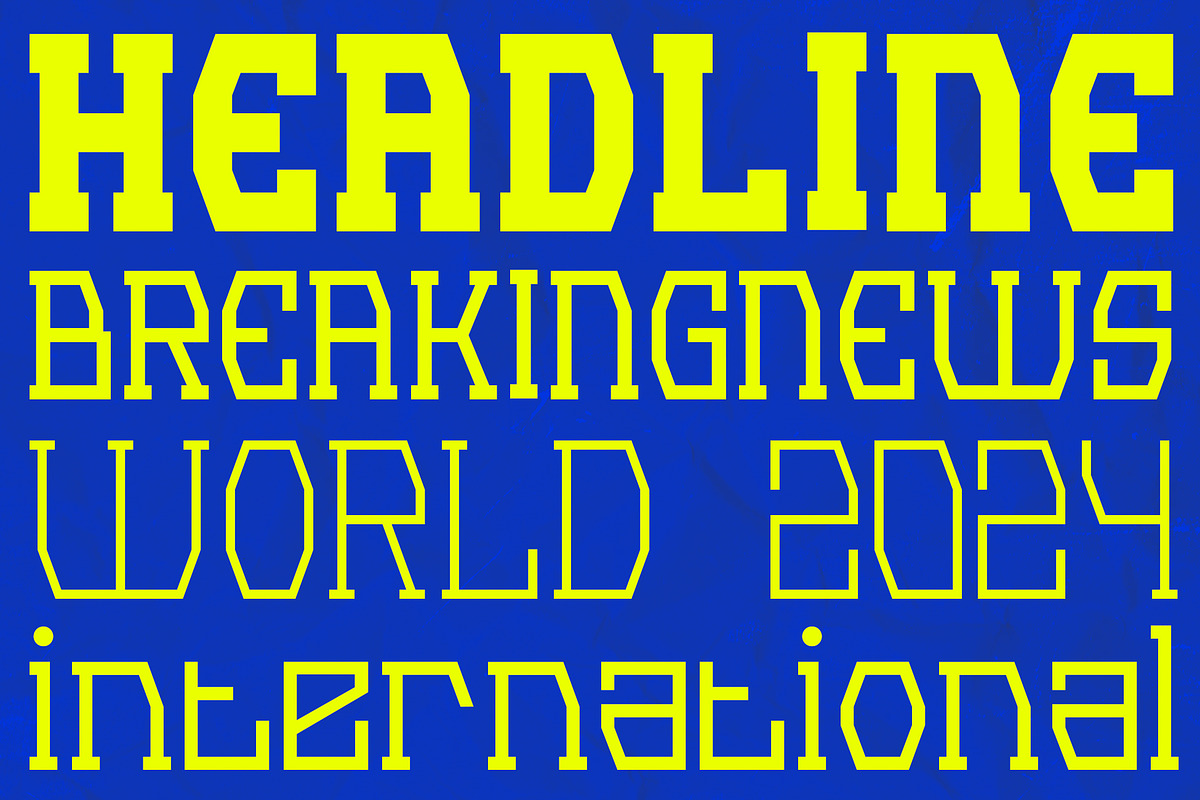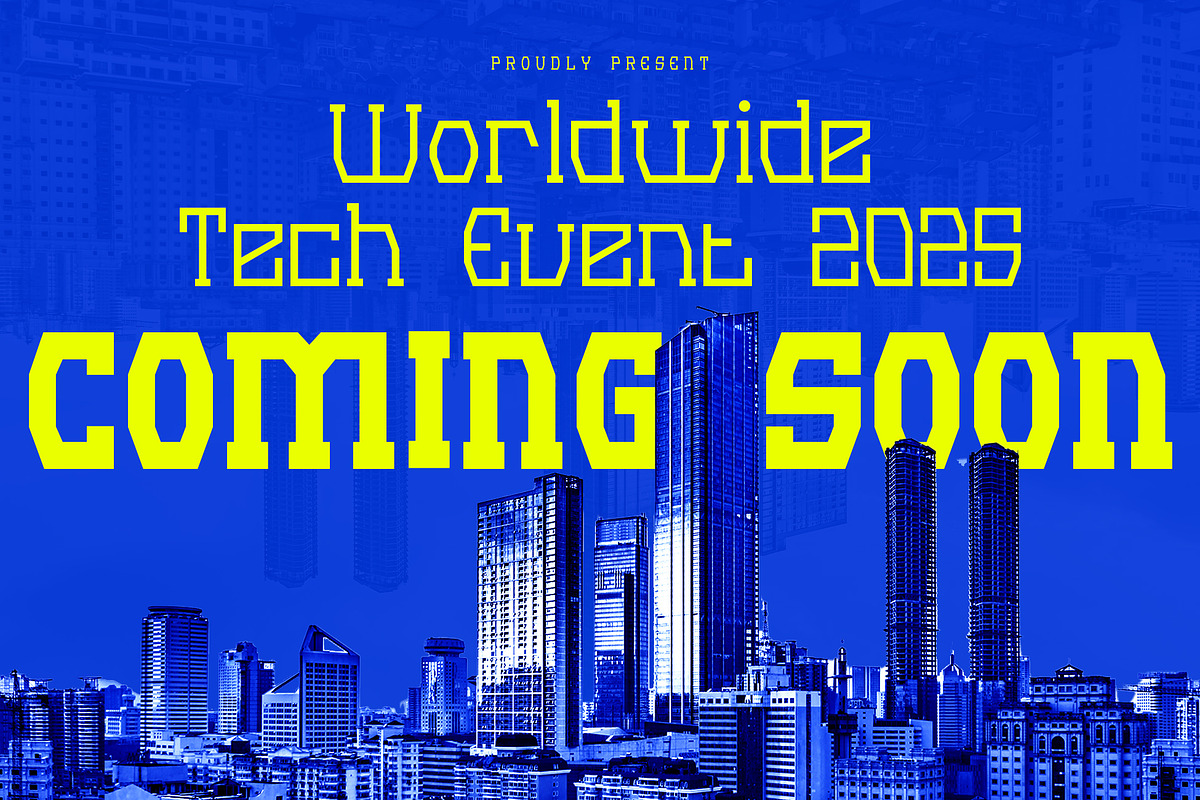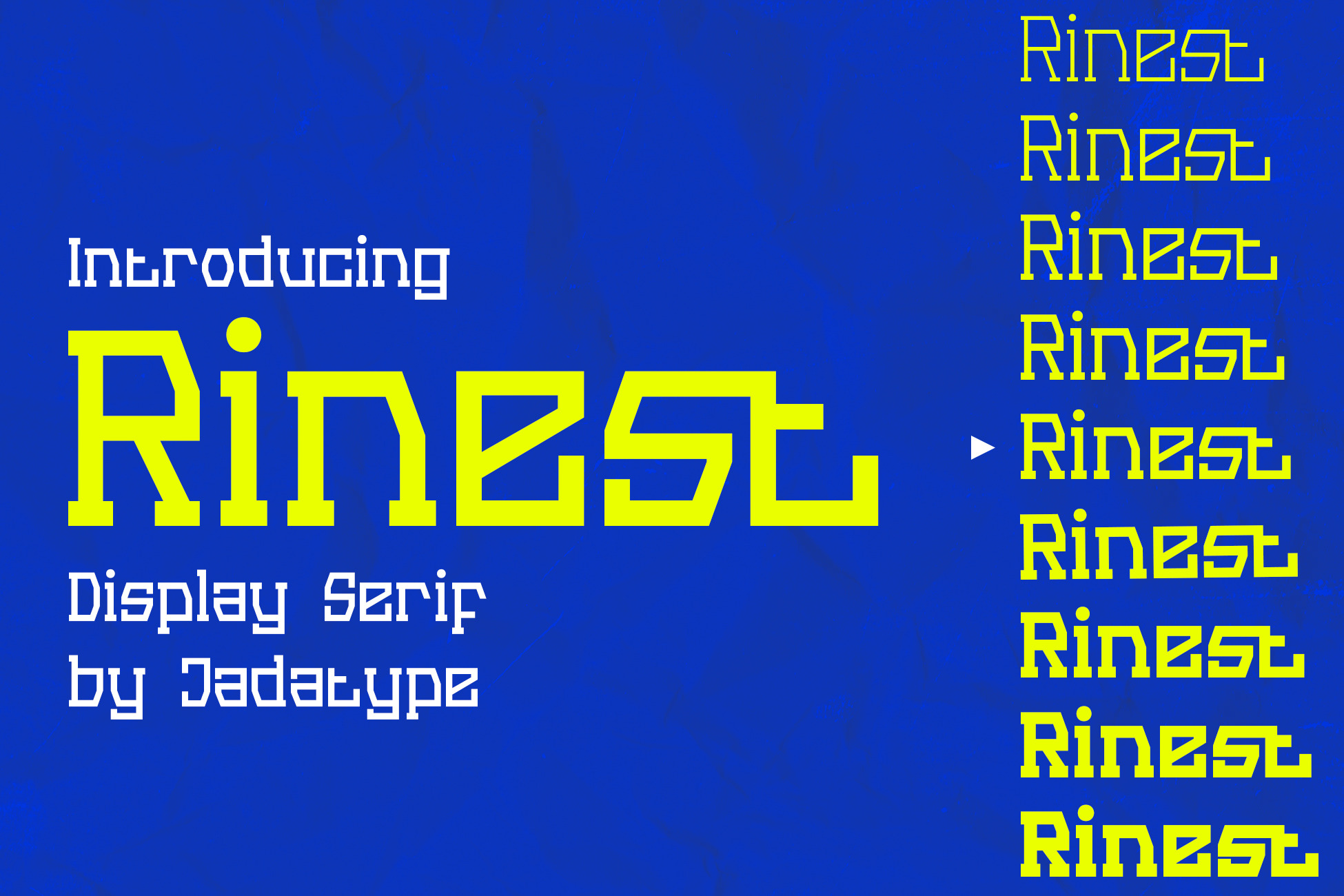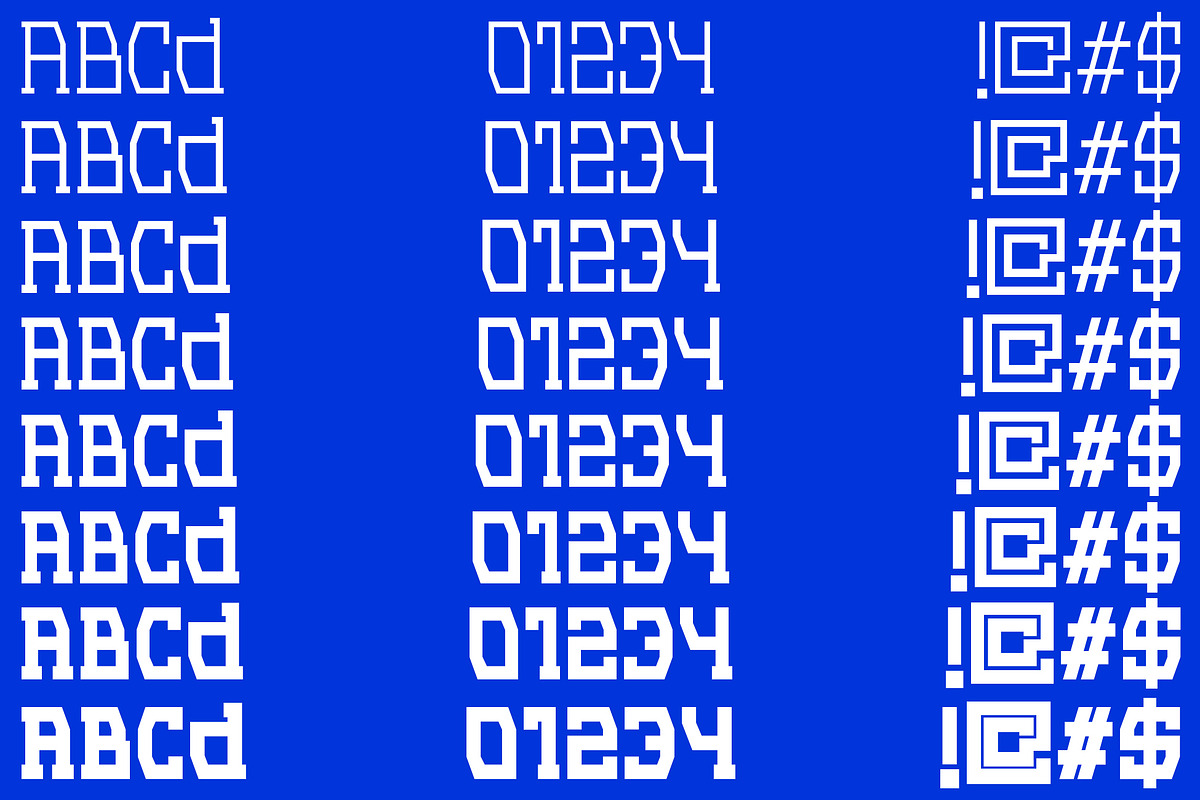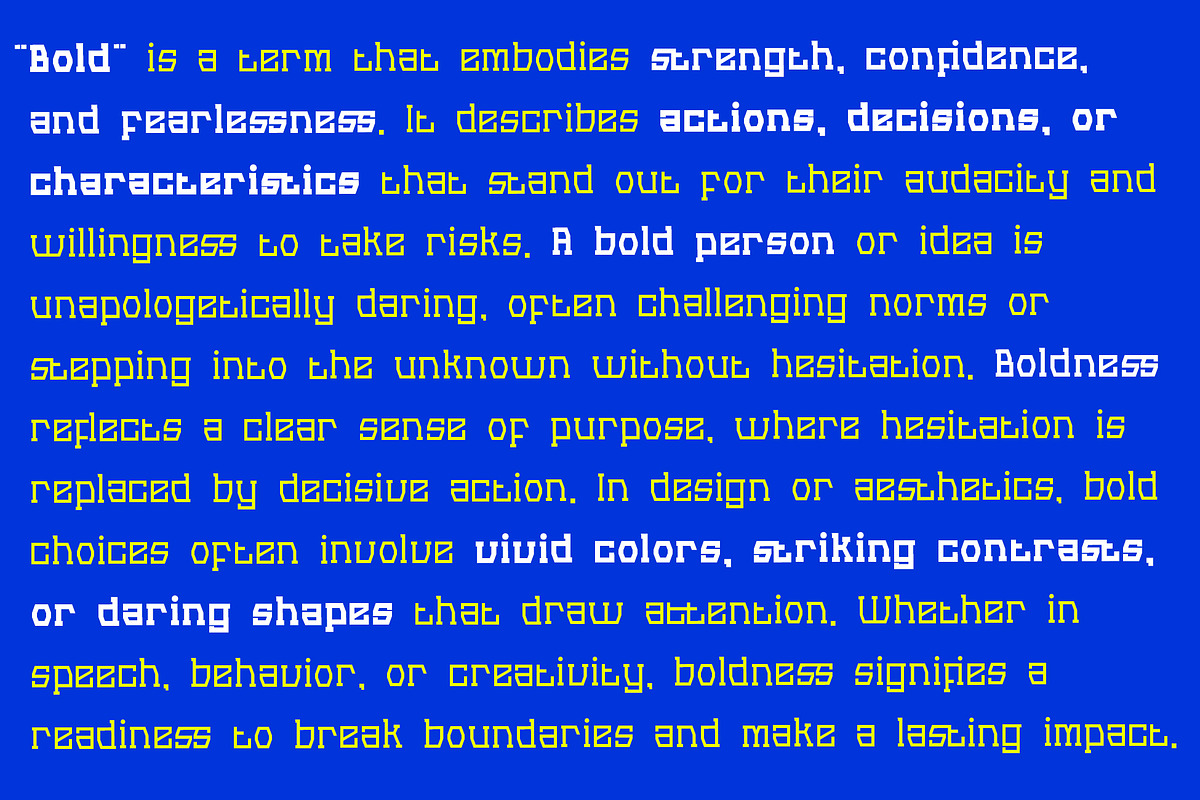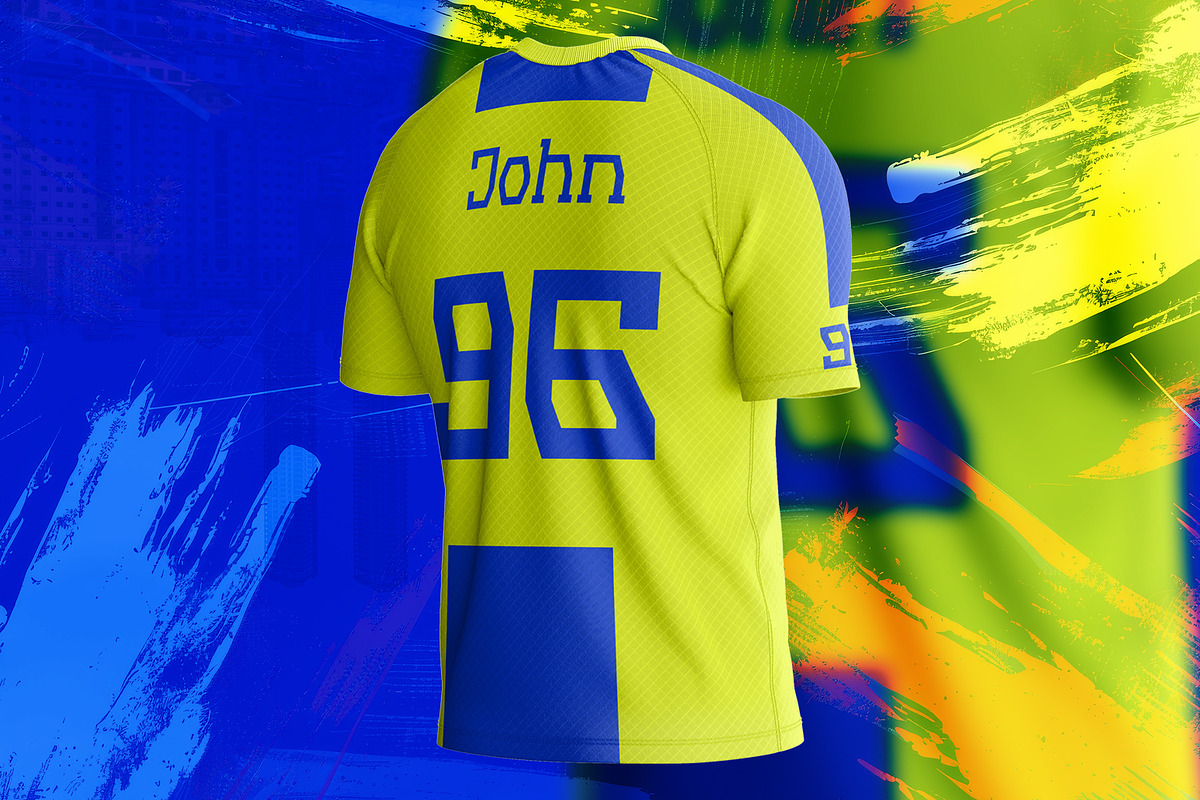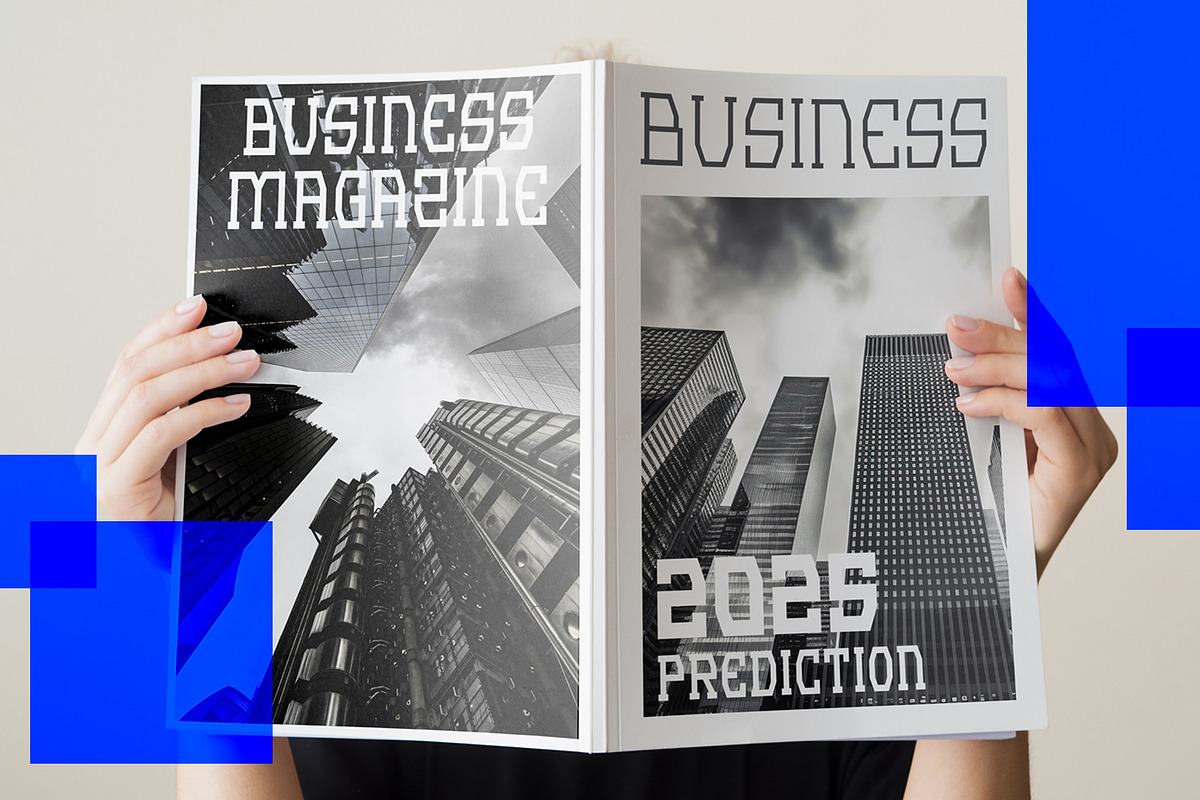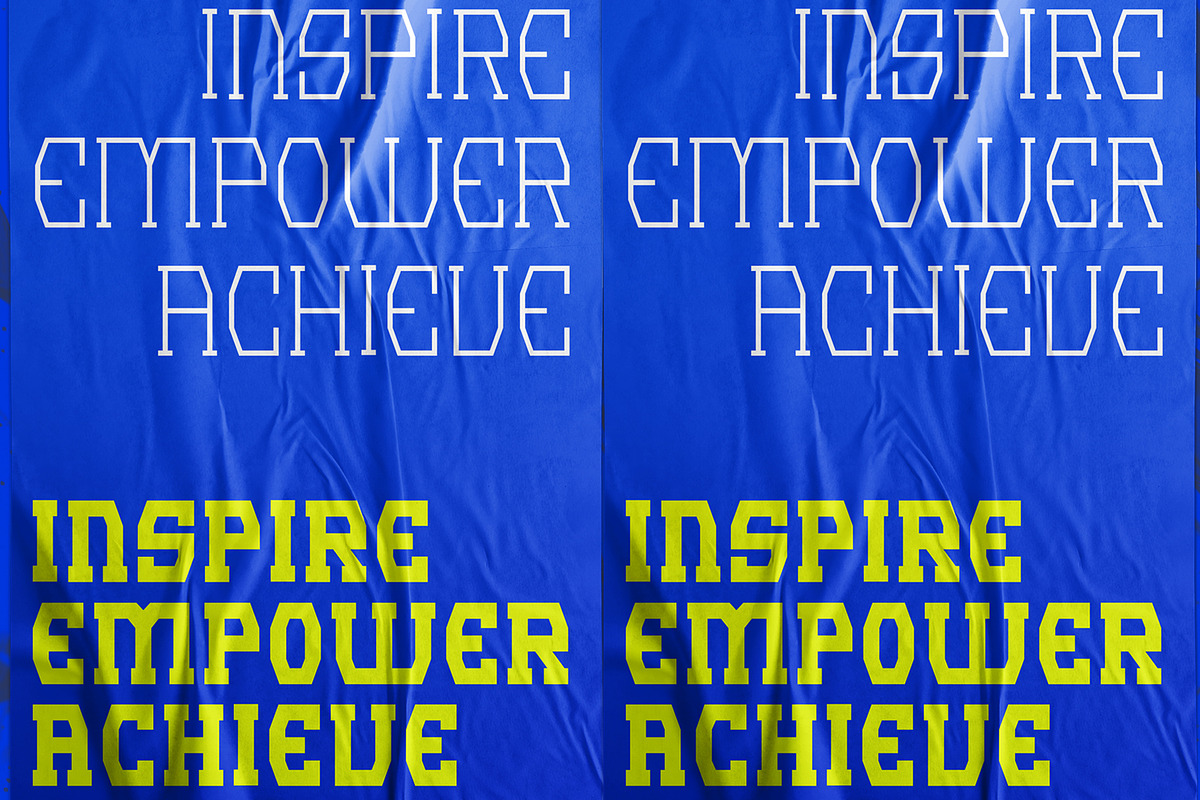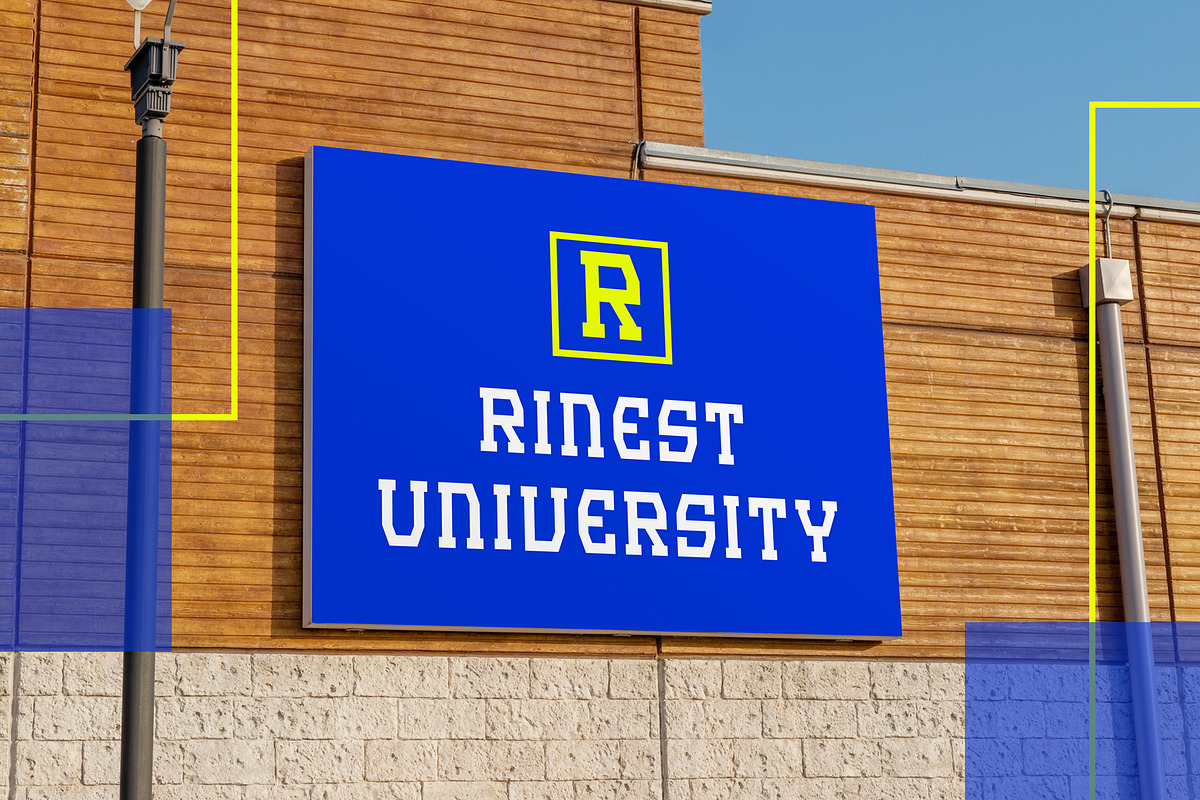
Rinest Font | Display Serif Family
Rinest is a Serif family that came with 9 fonts. Suitable for product, Branding, social media, logotype and so on. contains standard English letters, numbers, punctuation, and several accents that support multilingualism.